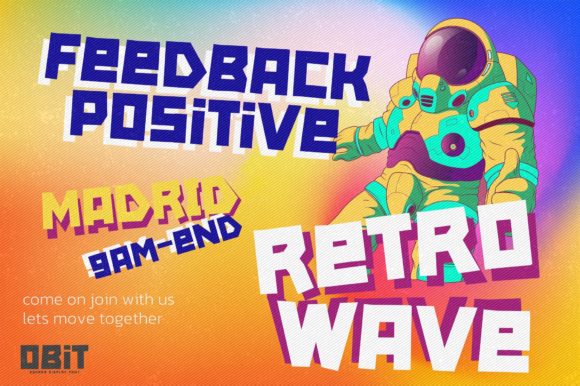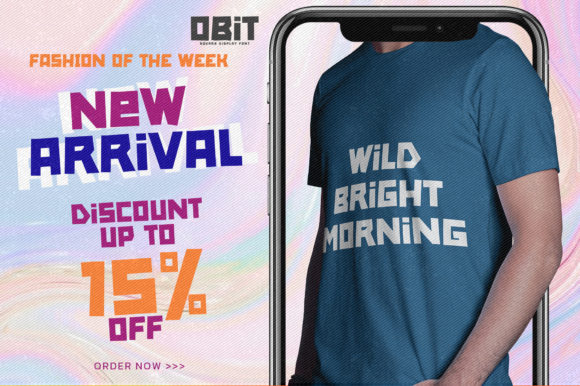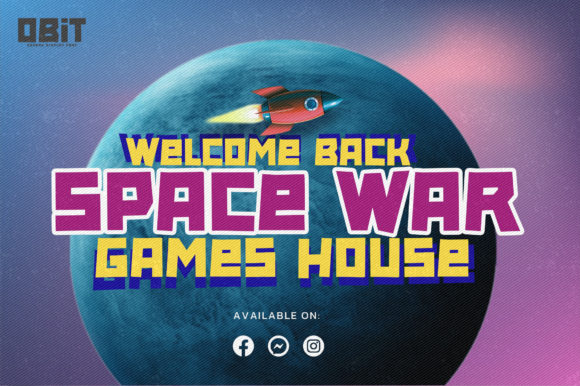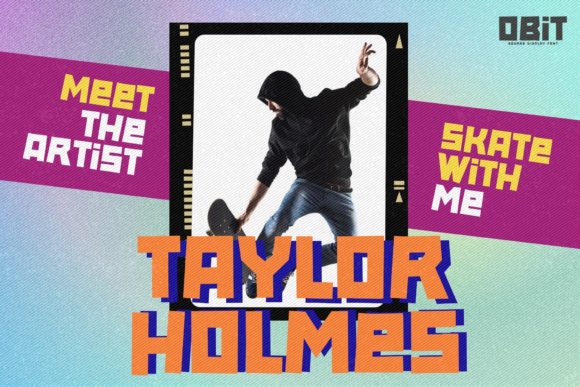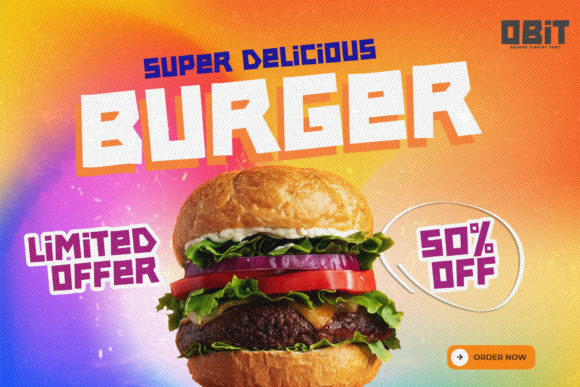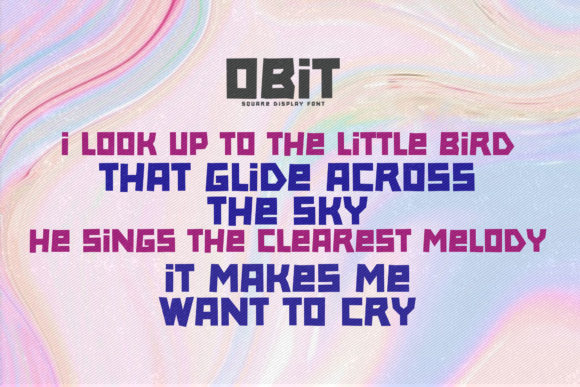
Introduction to Obit Font
As designers, we’ve all been there – stuck on a creative project, struggling to find the perfect font to bring our vision to life. It’s like searching for a needle in a haystack, until suddenly, you stumble upon that one font that makes everything click. For me, that font was the Obit Font – its bold, robotic display instantly elevated my design from ordinary to extraordinary.
With its modern and futuristic vibe, the Obit Font is the ultimate design resource for anyone looking to add a bold touch to their creative project. Whether you’re working on a futuristic concept or a sci-fi inspired design, this high-quality font is sure to impress. And the best part? It’s available for a free download, making it accessible to designers of all levels.
Whether you’re a seasoned pro or just starting out, the Obit Font is a valuable addition to any designer’s toolkit. Its versatility and style make it perfect for a wide range of designs, from posters to digital interfaces, and even logos. So why wait? Give the Obit Font a try and see how it can take your designs to the next level.
Key Features of Obit Font
- Unique and elegant design, ideal for creative projects and memorials.
- High-quality font with transparent background, allowing for seamless integration into various design resources.
- Features a clean and minimalist aesthetic, perfect for use in a range of creative applications.
- Perfect for use in eulogies, obituaries, and other memorial-related creative projects.
Honest Review: Obit Font
As a designer, I’m always on the lookout for high-quality design resources that can elevate my creative projects. The Obit Font is a free download that I recently came across, and I’m excited to share my honest review.
- ✨ Unique and bold aesthetic: The Obit Font has a distinctive look that can add a touch of sophistication to any design.
- ✨ High quality: The font is well-crafted and suitable for various design applications, including print and digital projects.
- ✨ Free download: I appreciate that the font is available for free, making it an excellent option for designers on a budget.
- ⚠️ Limited language support: Unfortunately, the Obit Font only supports a few languages, which may be a limitation for designers working on international projects.
- ⚠️ No transparent background: The font doesn’t have a transparent background option, which can be a drawback for designers who need to use it on top of images or videos.
Overall, I think the Obit Font is a solid design resource that can be useful for creative projects. While it has some limitations, its unique aesthetic and high quality make it worth considering. I’d recommend it for designers who need a bold and eye-catching font for their designs.
How to Use Obit Font
The Obit Font is a versatile and elegant design resource ideal for various creative projects. With its transparent background, it can be easily integrated into different design elements.
Tips for Getting the Most Out of Obit Font
Experiment with different font sizes, colors, and combinations to create visually appealing designs.
The Obit Font is suitable for a variety of projects, including:
Business cards and letterheads
Wedding invitations and event materials
Marketing materials and brochures
Personal branding and identity designs